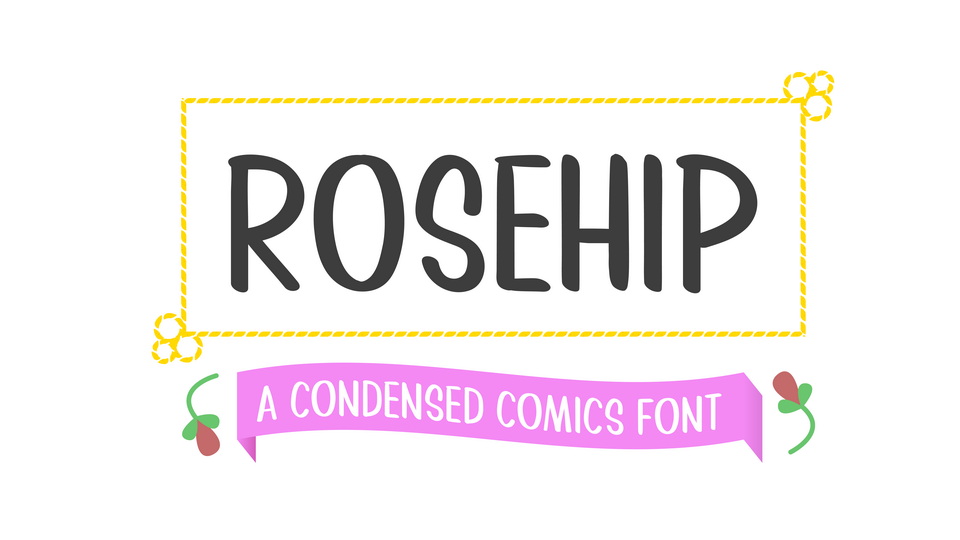
Download Rosehip font, a condensed comic dialogue typeface with four styles and a wide range of glyphs designed for the editorial needs of comic book lettering.
Designer: Sara Linsley